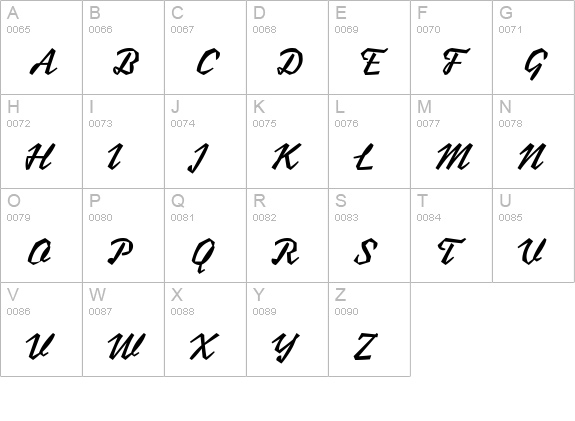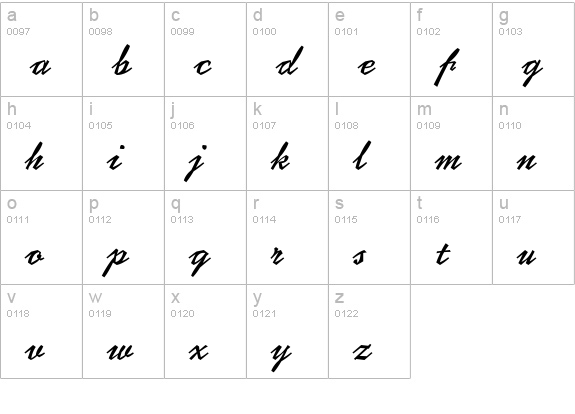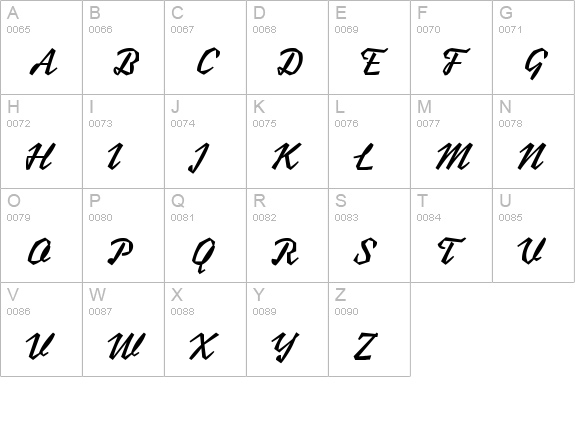
CoptekPlain Font Details
CoptekPlain font is a sleek and modern typeface that exudes sophistication and style. With its clean lines and elegant design, this versatile font is perfect for a wide range of design projects, from branding to editorial design. Its timeless appeal makes it a great choice for both print and digital applications. What sets CoptekPlain font apart is that it is available for free! Yes, you heard that right - you can download this high-quality font at no cost from FontsMarket.com. Whether you're a designer on a budget or simply looking to add a new font to your collection, CoptekPlain is a fantastic choice that won't break the bank. Don't miss out on the opportunity to elevate your designs with CoptekPlain font - download it for free today and let your creativity shine!